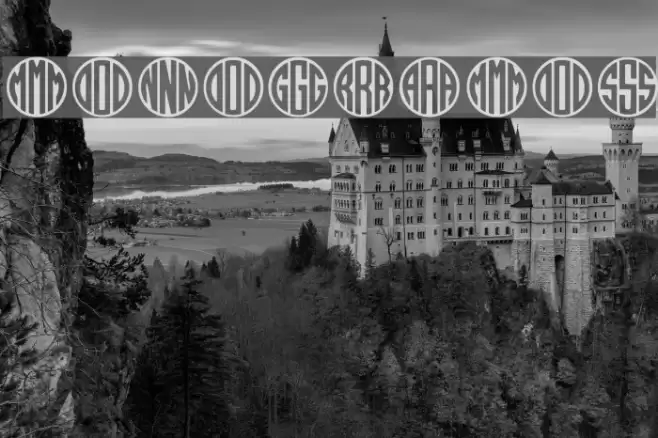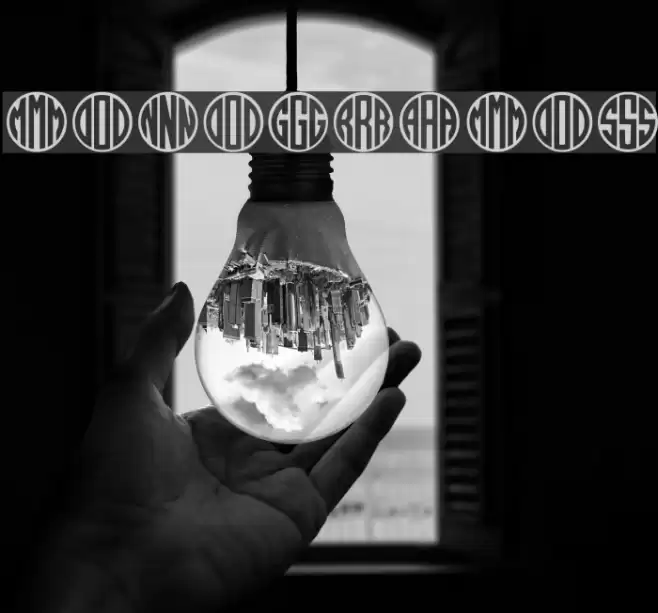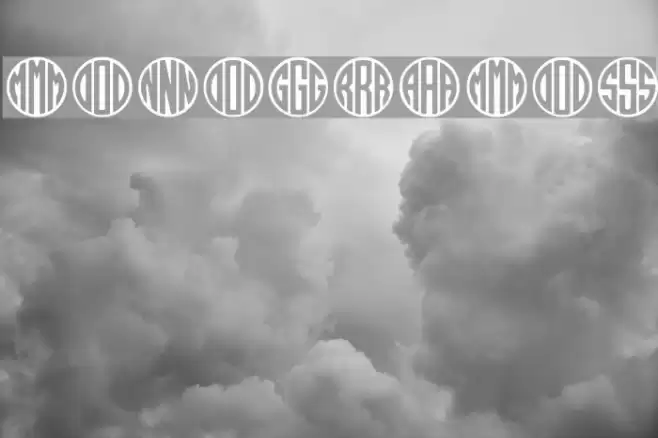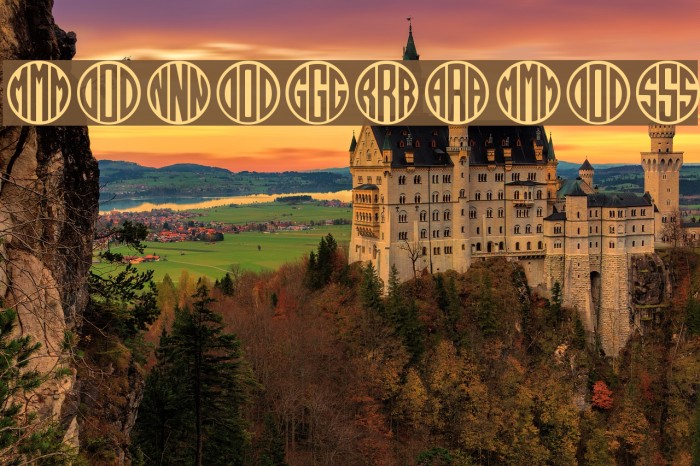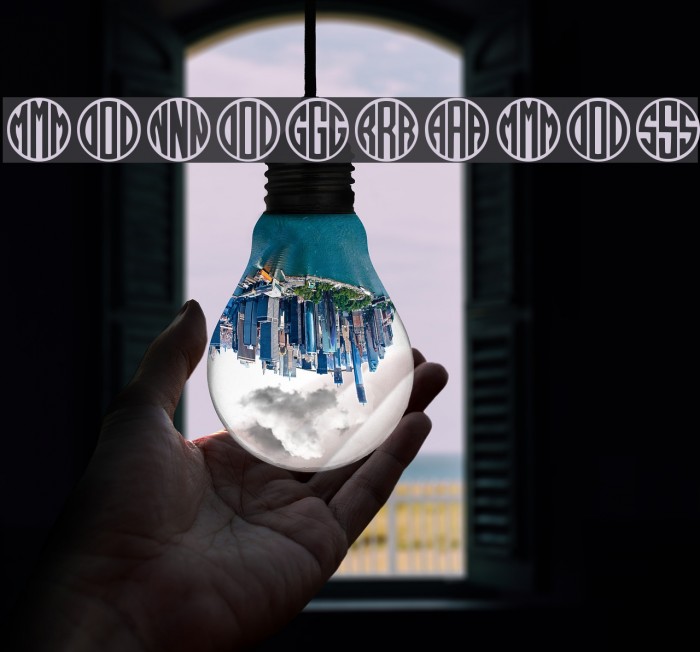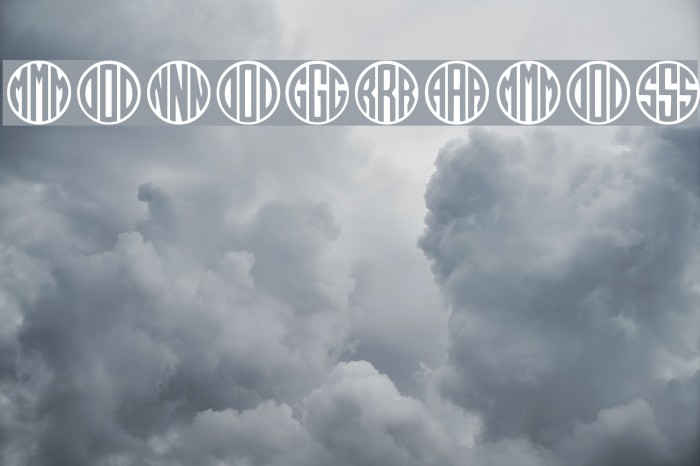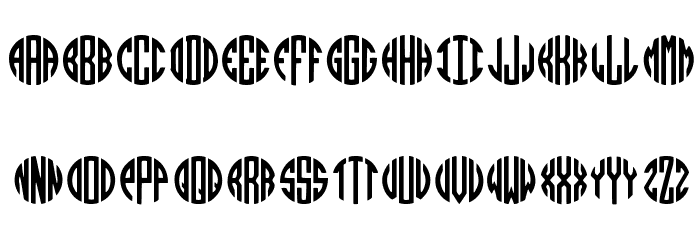
MONOGRAMOS Font
MONOGRAMOS Description
This font features a bold, geometric style with characters enclosed in circular shapes, creating a monogram-like appearance. The uppercase letters are distinct and symmetrical, emphasizing vertical and horizontal lines. The design is consistent across the alphabet, maintaining a uniform look that is both modern and decorative. The font's unique structure makes it ideal for branding and logo design, where a strong visual identity is required. The enclosed circular forms add a sense of completeness and balance, making it visually appealing for various design applications.
A bold, geometric font with monogram-style circular enclosures from Uncategorized fonts.
- Proposed Projects: Ideal for branding, logo design, monograms, and decorative signage.
- Use Case: Logos, Monograms, Decorative elements